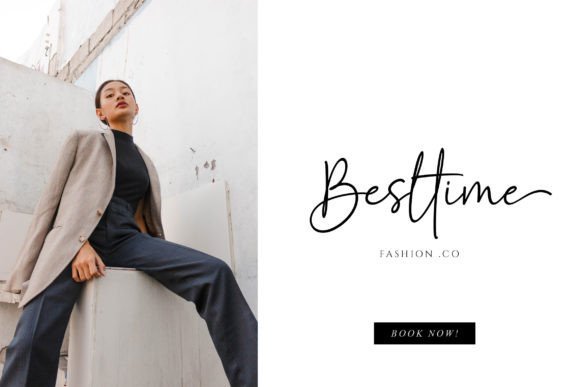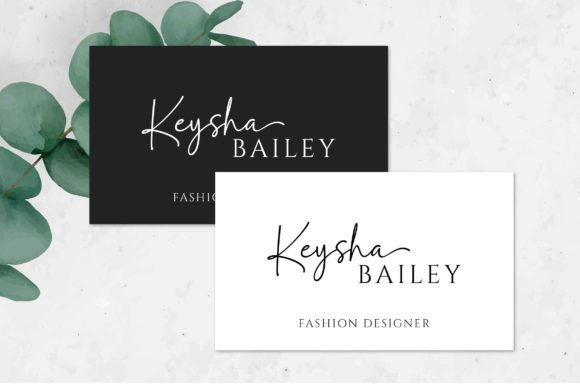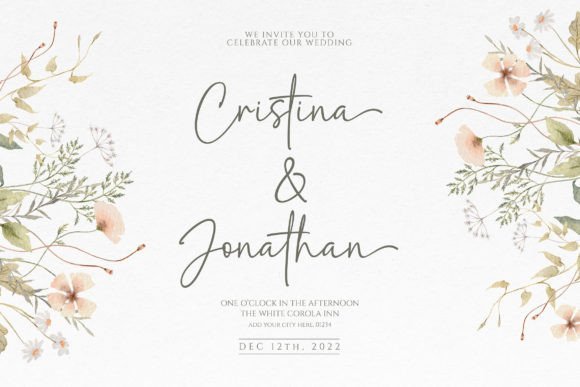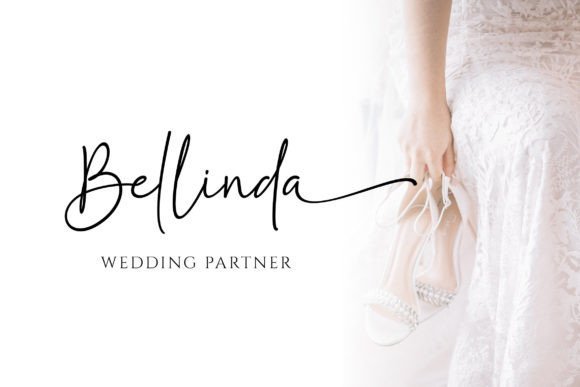
Ashley Southine Font
Ashley Southine is a handwritten script font that offers an elegant and personal touch to every character. Inspired by handcrafted strokes, this font presents a natural handwritten feel that is both warm and inviting. Each letter showcases uniqueness in every curve and stroke, creating a relaxed yet refined atmosphere. Ideal for design projects seeking a personal touch, such as wedding invitations, greeting cards, brand logos, and other design elements requiring a warm and elegant ambiance. “Ashley Southine” is the perfect choice for anyone looking to infuse a human touch into their designs using this beautiful handwritten font.